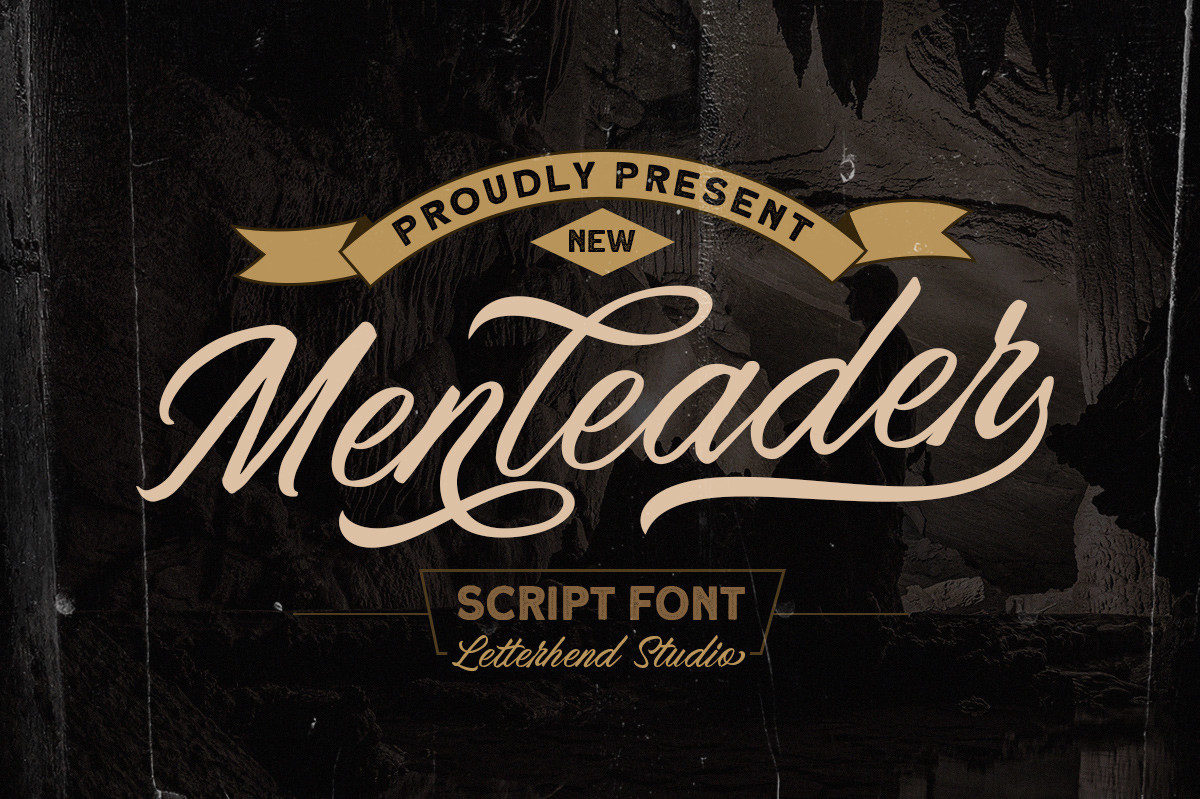
Menleader Font
This authoritative and commanding typeface is perfect for executive coaching services, leadership development programs, corporate training materials, business consultation branding, management firm logos, professional conference signage, executive recruitment agencies, corporate leadership books, and business strategy presentations that require a strong, professional aesthetic.
Menleader Font brings excitement to design projects with its confident, assertive character and executive presence that embodies the qualities of effective leadership. The font features bold, decisive letterforms with strong vertical emphasis that convey authority, reliability, and executive competence. Its professional sophistication and commanding structure make it an exceptional choice for brands that want to communicate leadership excellence, business acumen, and corporate authority in their professional communications.
The Menleader Font family includes comprehensive executive styles: Light, Regular, Medium, Bold, Black, Condensed, and Extended versions. Each weight maintains the font's distinctive leadership character while providing designers with complete flexibility for creating authoritative corporate branding systems. The family also features executive symbols, professional ornaments, business-focused ligatures, and corporate decorative elements that enhance the overall leadership aesthetic.
When searching for professional leadership typography solutions, Menleader Font Free Download represents the pinnacle of executive design excellence and corporate sophistication. Professional designers consistently select this font for its ability to instantly establish credibility while ensuring optimal readability across business applications. The typeface performs exceptionally well from detailed business cards to large-scale conference presentations, maintaining its authoritative presence at every professional scale.
The font's executive excellence includes precision-tuned character spacing for maximum impact, superior presentation quality optimization, and advanced readability features designed for high-stakes business environments. Whether you're designing for management consulting firms, executive training programs, or corporate leadership initiatives, this font delivers the professional gravitas that commands respect and inspires confidence in business leadership.
For creative professionals working with corporate and executive markets, this font represents an indispensable asset for creating trustworthy leadership communications. The careful balance between authority and approachability ensures effective executive engagement while maintaining the dignity required for high-level business applications. Download this exceptional typeface today and experience how commanding typography can elevate your corporate projects to executive standards that lead with confidence and inspire organizational success.